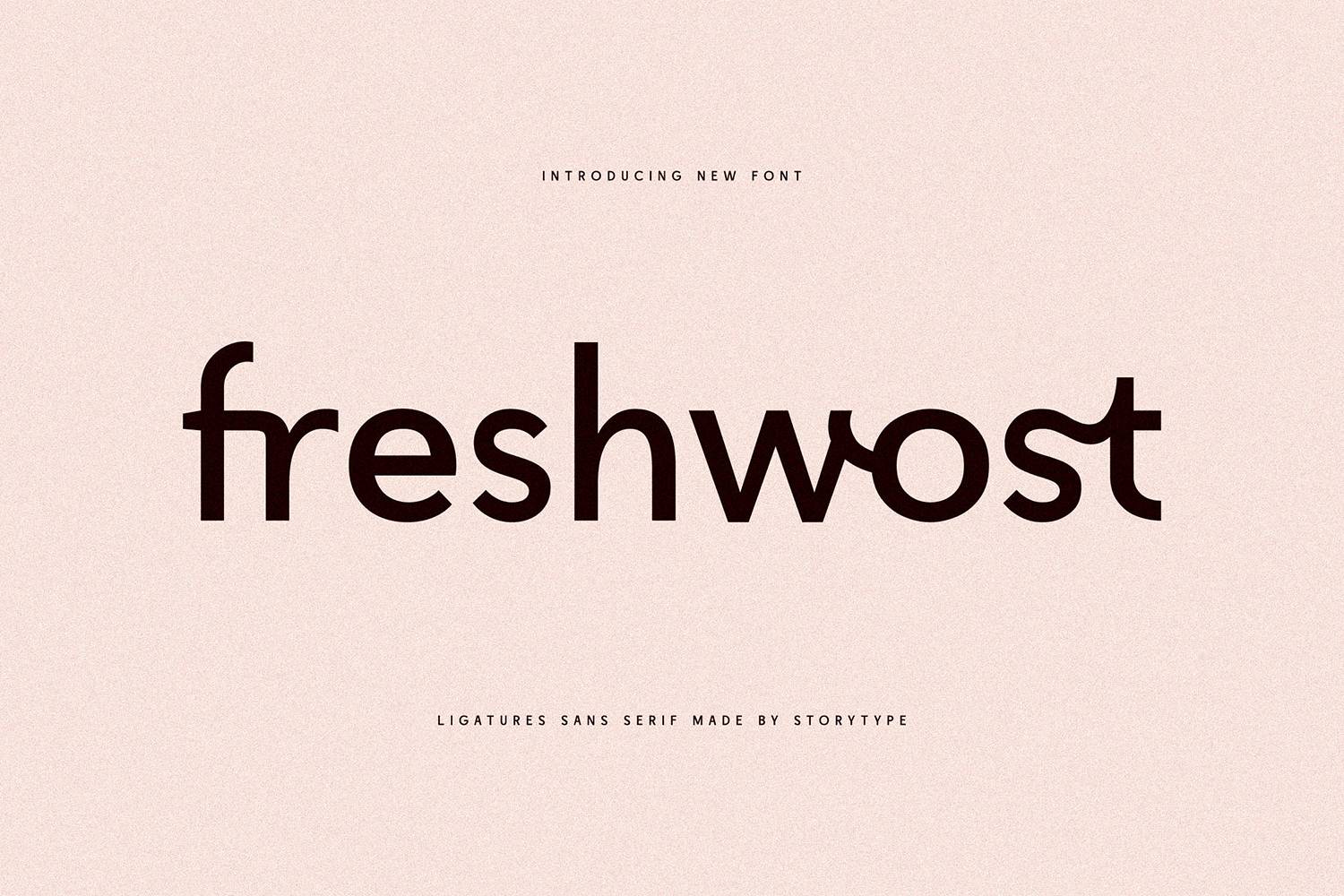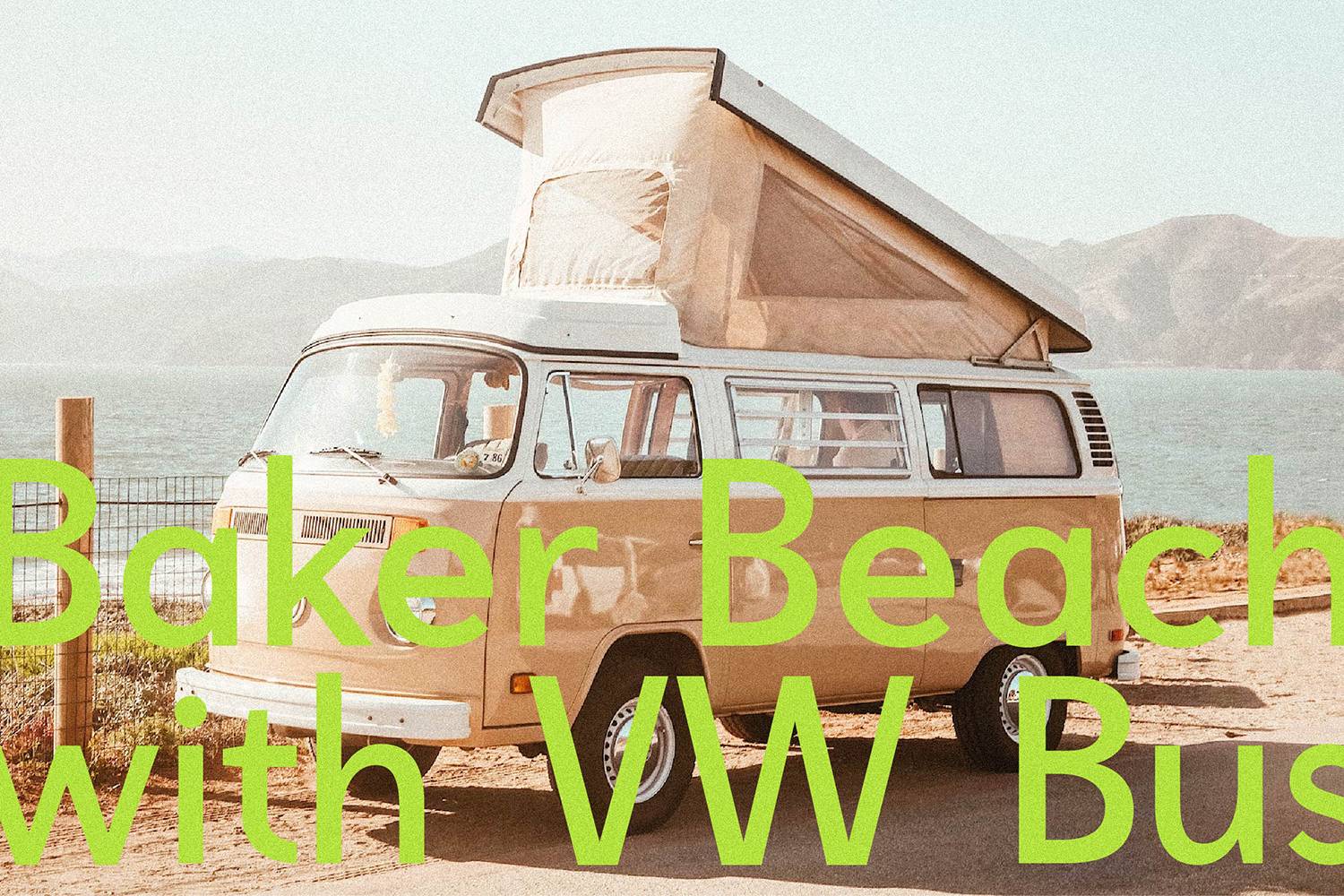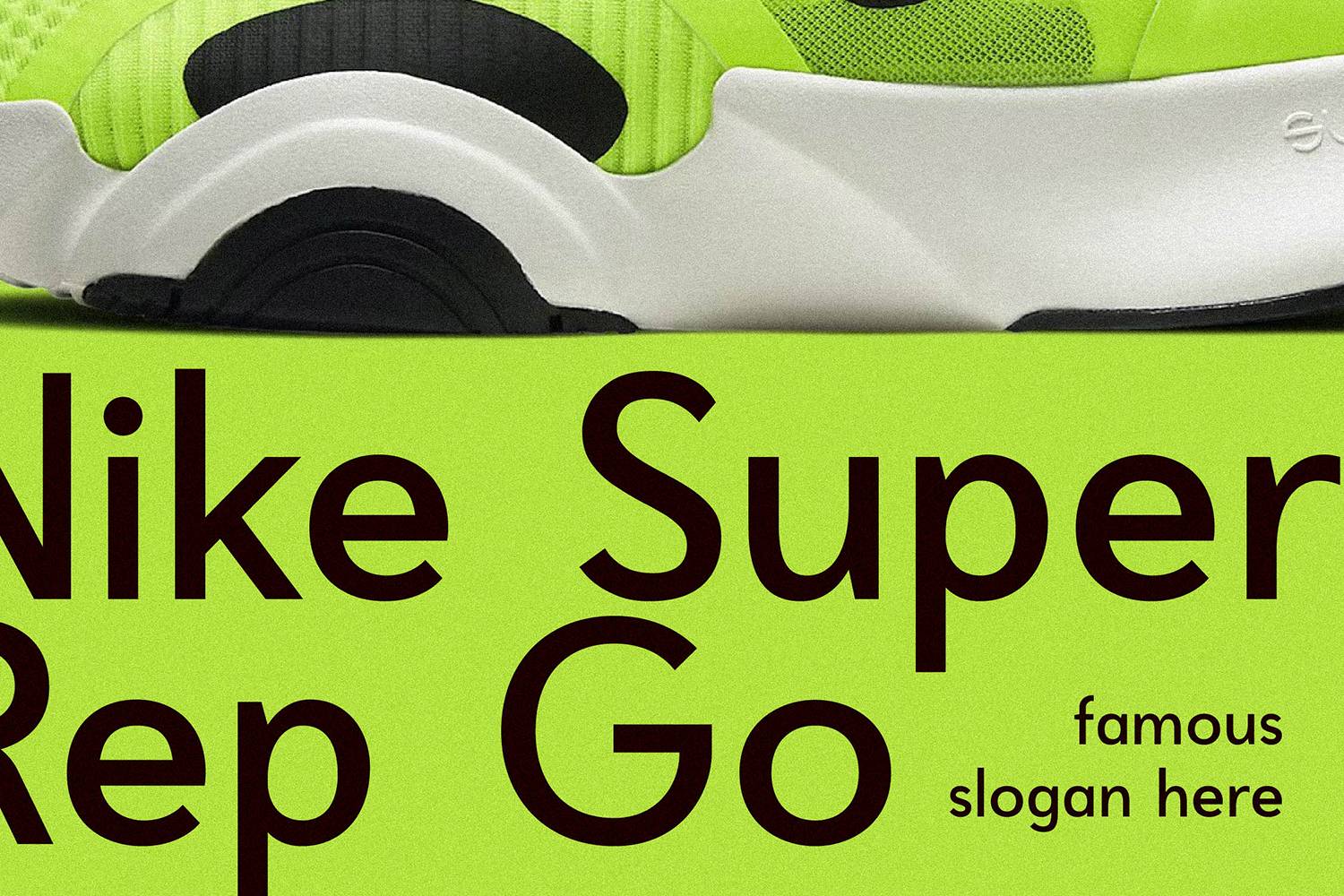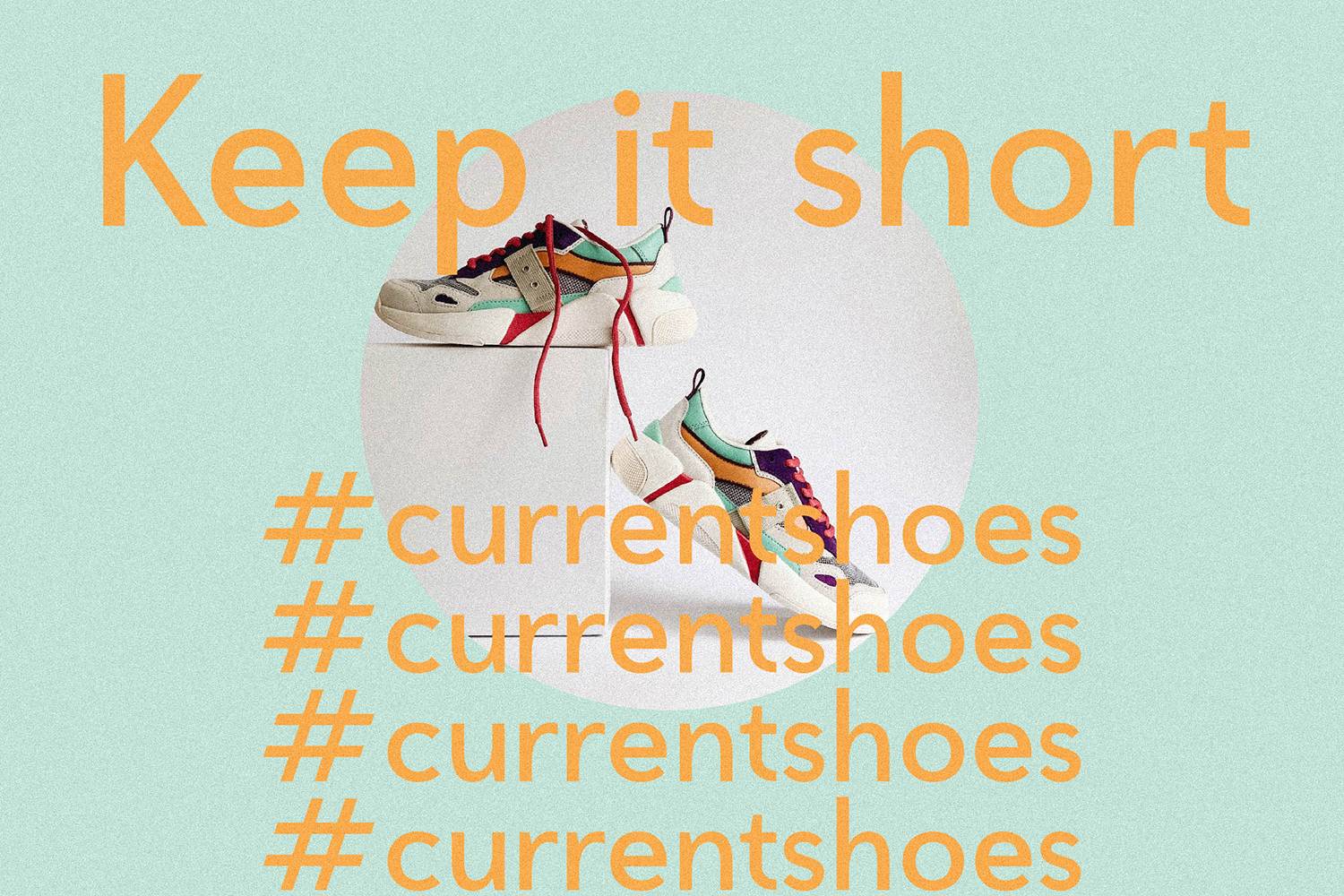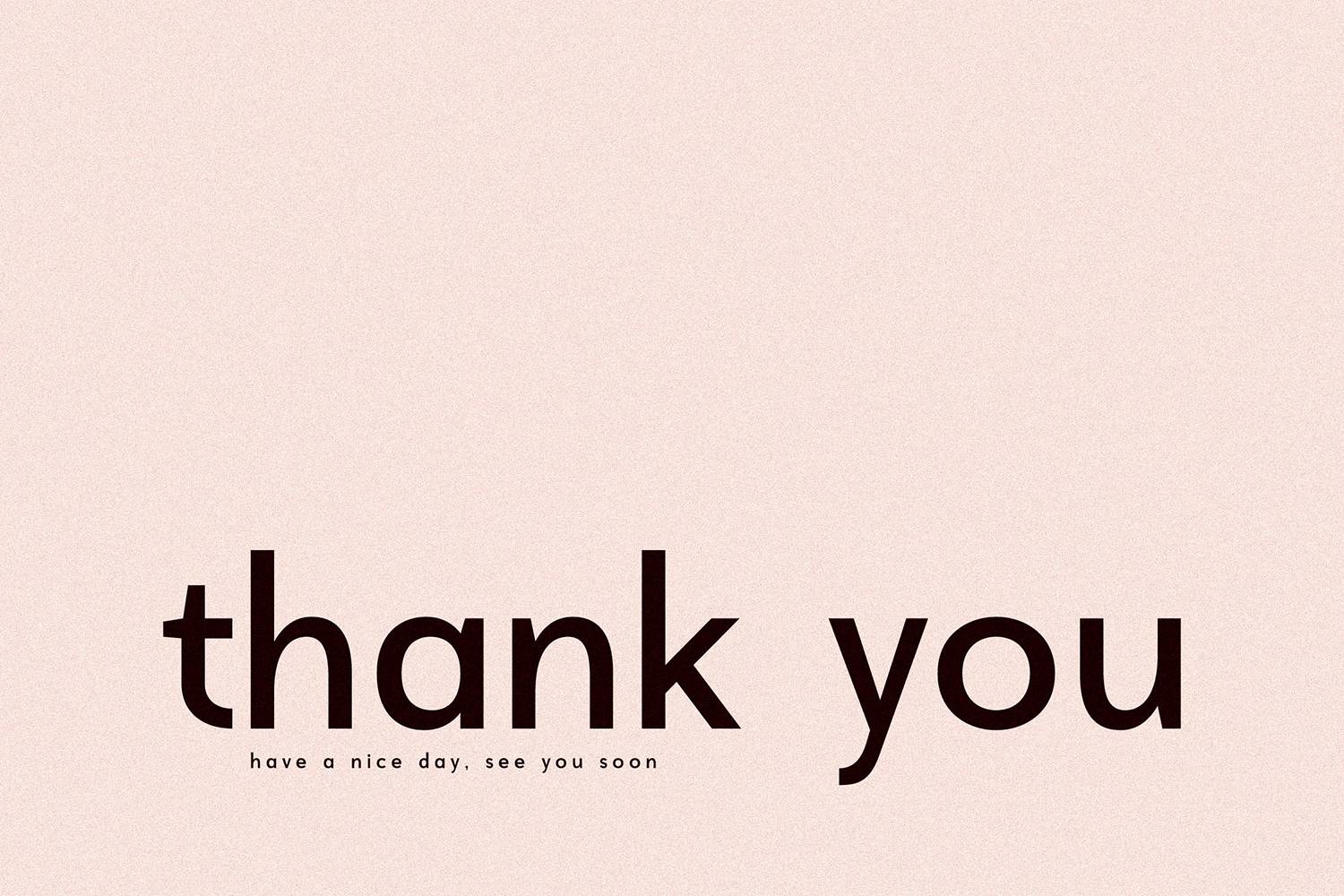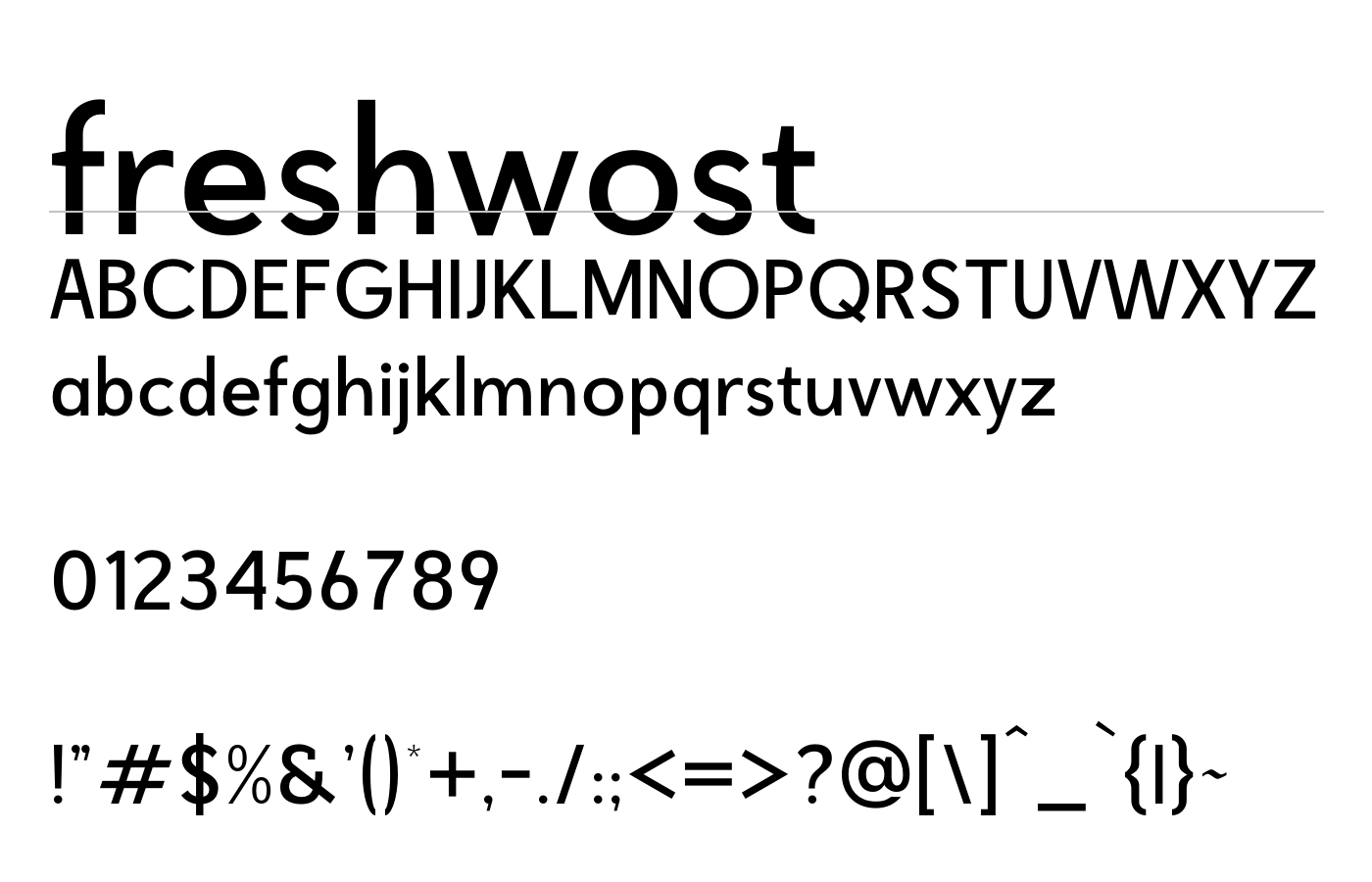
Freshwost is a clean and modern sans serif font with a balanced regular weight and a slightly condensed width that gives it a contemporary and efficient feel. Its simple and geometric letterforms with low contrast strokes make it highly legible and versatile, suitable for both headings and body text. This font works well for branding, editorial design, and digital content where clarity and a polished, professional appearance are key.
Freshwost Font
About Freshwost Font